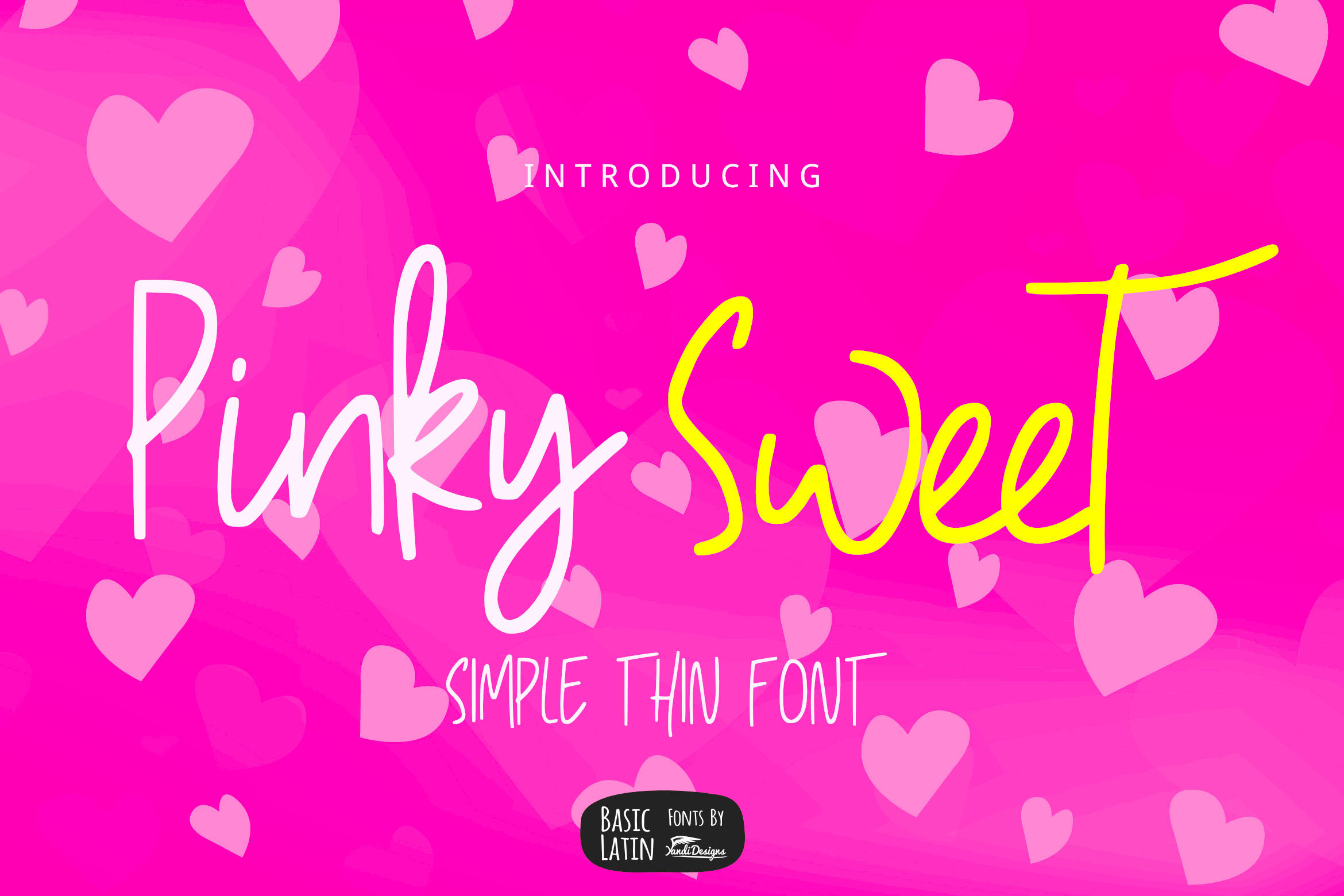
Pinky Sweet Cute Font
Pinky Sweet Script Font
Simple cute script font , suitable for many project, signature , quotes, logo , doodle, heading , title etc.